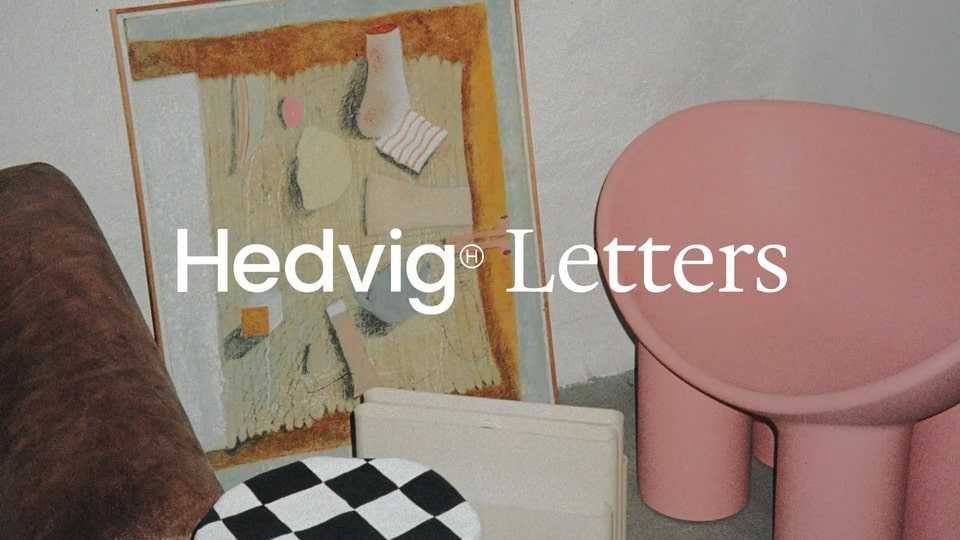
Download Hedvig Letters font, a small type family consisting of three fonts; Hedvig Letters Big, Hedvig Letters Small, and Hedvig Letters Standard. The conceptual idea behind the design is that it embraces the small mistakes and imperfections that comes from drawing letters without optical corrections.